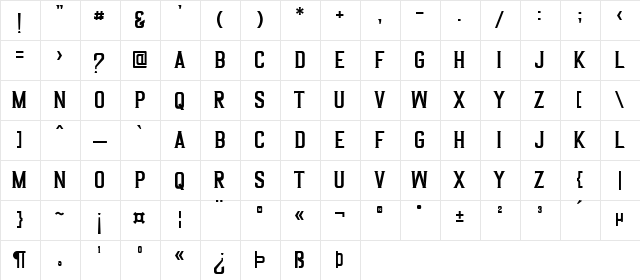
Arcana Pro DEMO Regular
Design Context for Arcana Pro DEMO Typeface
Arcana Pro DEMO is a composed and adaptable typeface that performs quietly and consistently across a wide range of design contexts.
Pro Tip: Use Arcana Pro DEMO in both headline and body roles to test its range before committing to a single application.